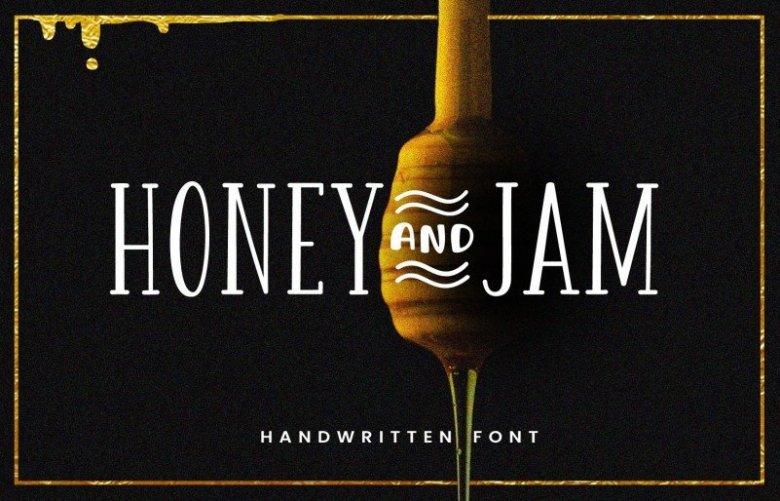
Honey & Jam Font Family
Say hello to Honey and Jam Font. This is a whimsical handwritten serif with a simple, artsy feel, perfect for print, websites, branding and more! It’s were made out of necessity to create a new font for children and teenagers, that could be enough friendly and versatile for text in words or even easy-to- read long texts.
It’s designed and shared by Shaped Fonts. It features a classy and elegant look combined with carefully designed serifs. It can be used with ALL CAPS or just small letters.
Both will give your project a truly unique character. Speaking of character, the full version of Honey and Jam features over 200 characters that include numbers, special glyphs and language support for most latin languages. So don’t hesitate and try out some this font for your next breakfast session – or just buy our latest font.